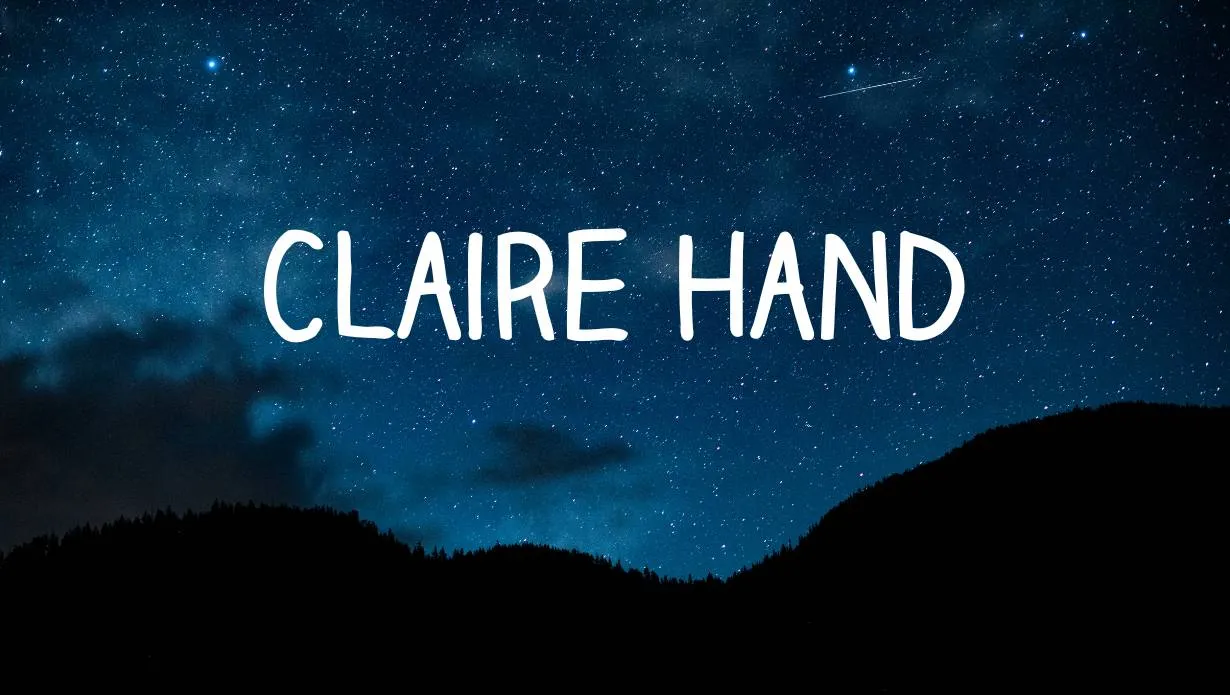
Let’s talk about an amazing neat and clean handwritten typeface that was designed by Team Scope it has amazing features and styles that make it perfect for many projects. It has three weights Regular, Bold, and Light. This font contains 287 characters, 264 glyphs, and 1000 units per Em. The weight of the font is semi-light and its width is medium (normal).